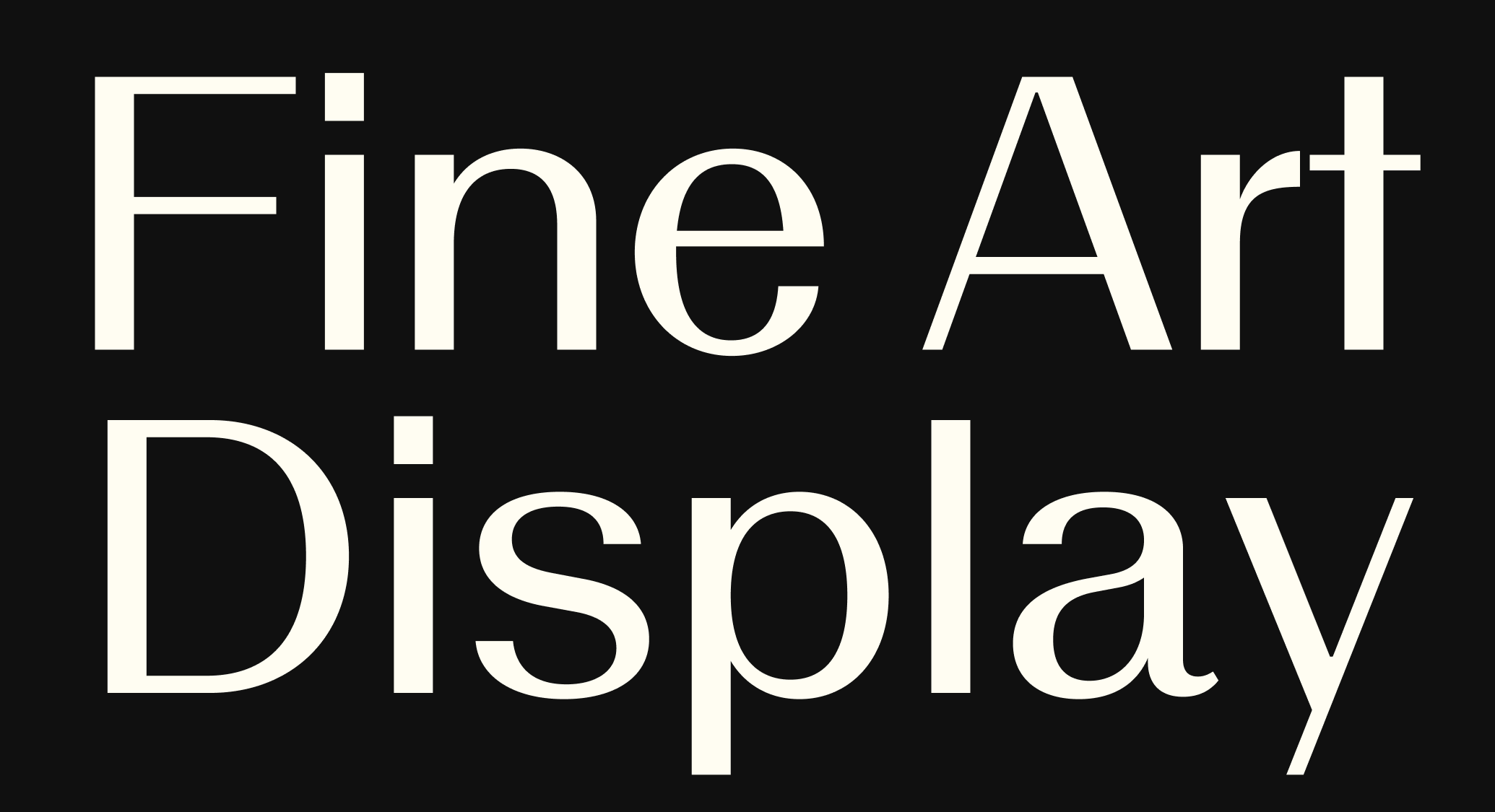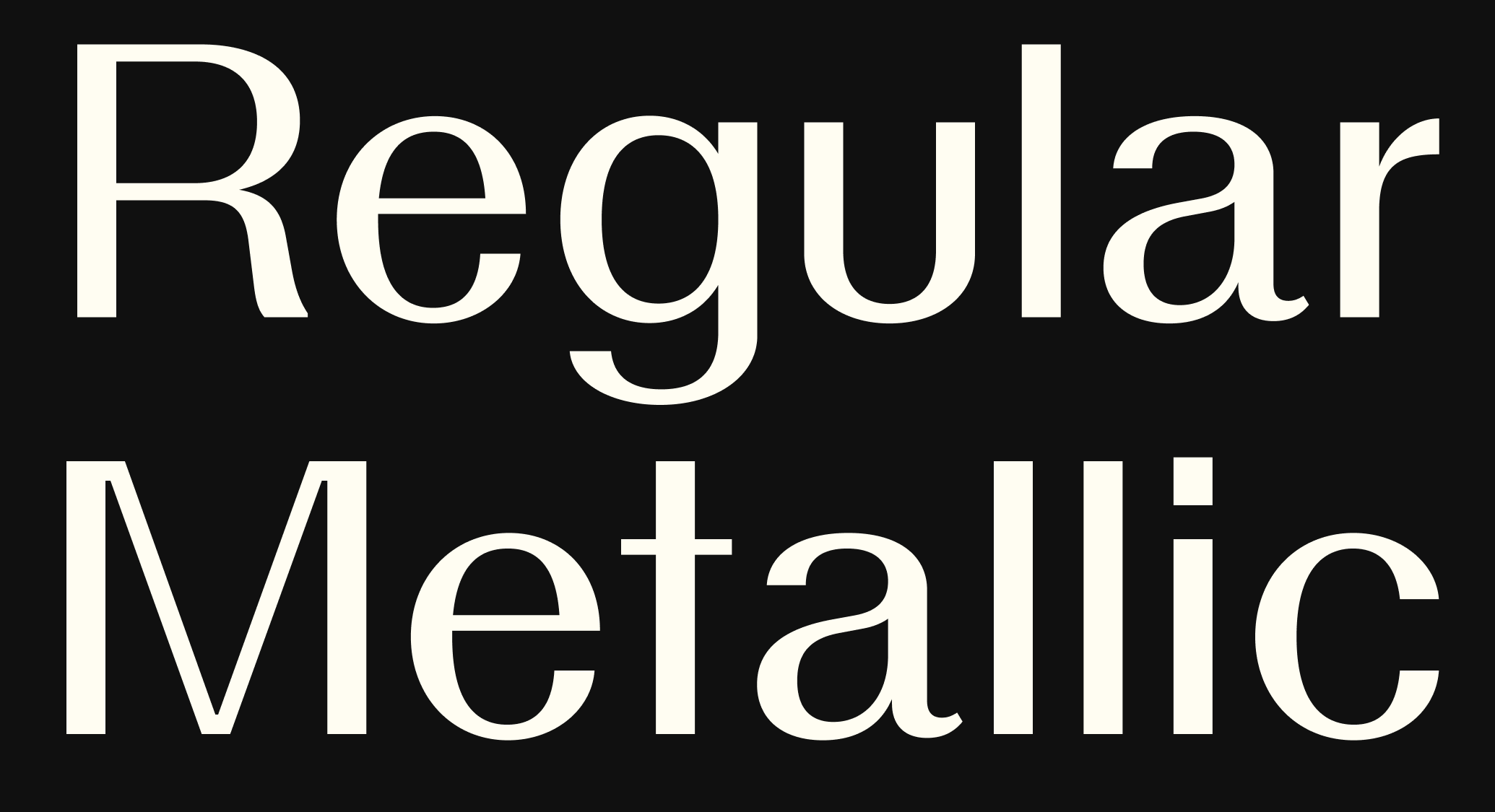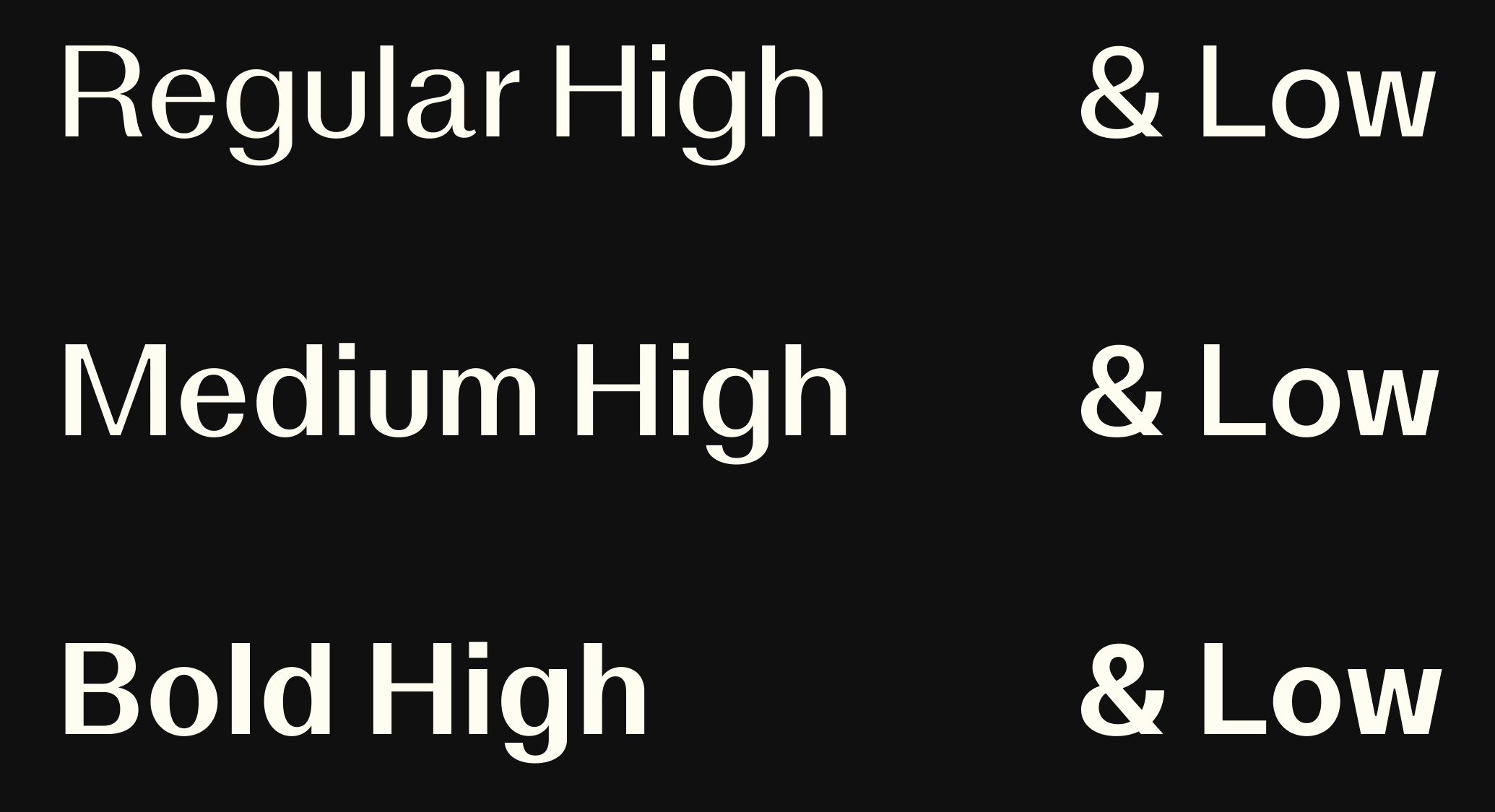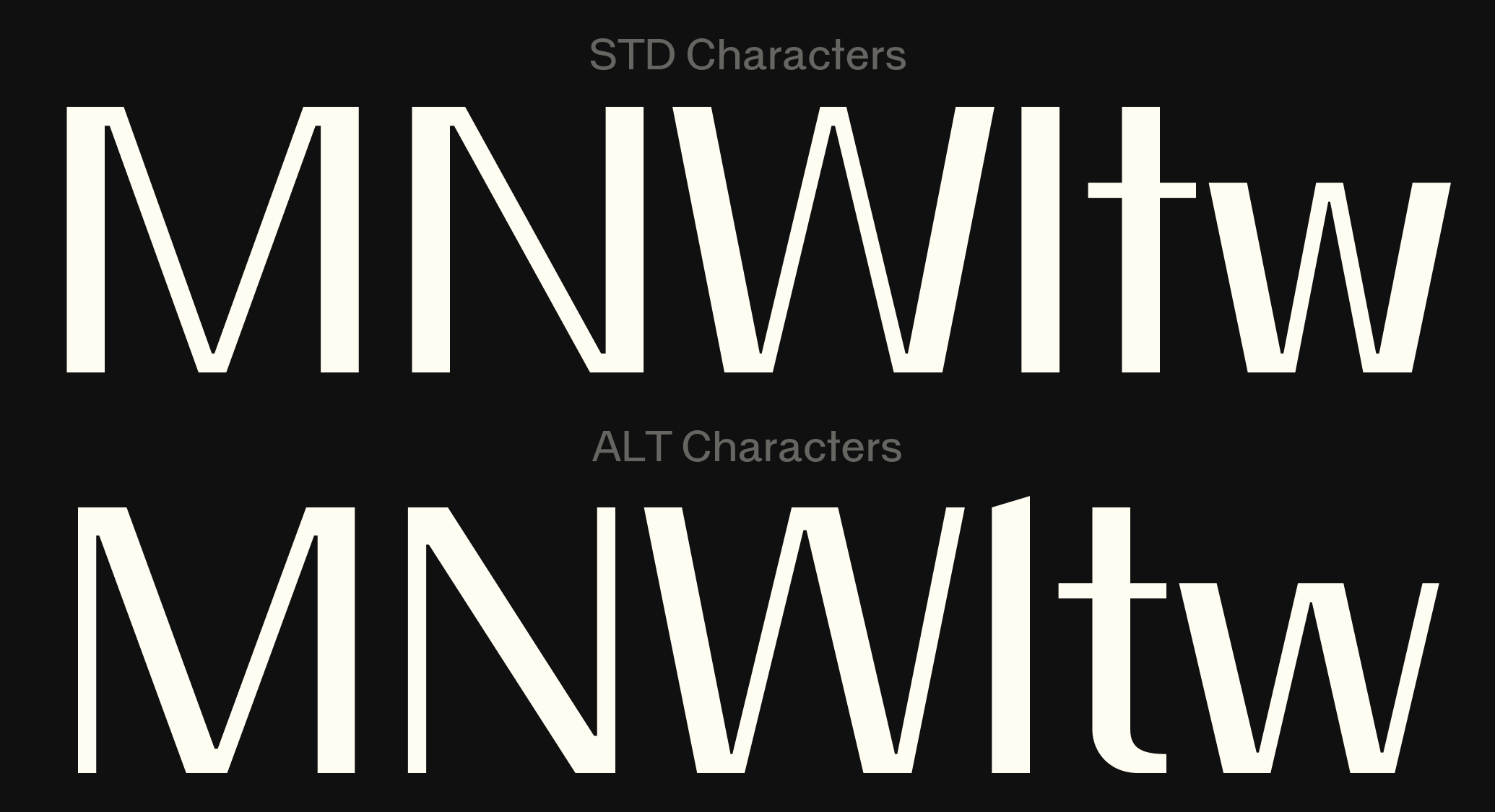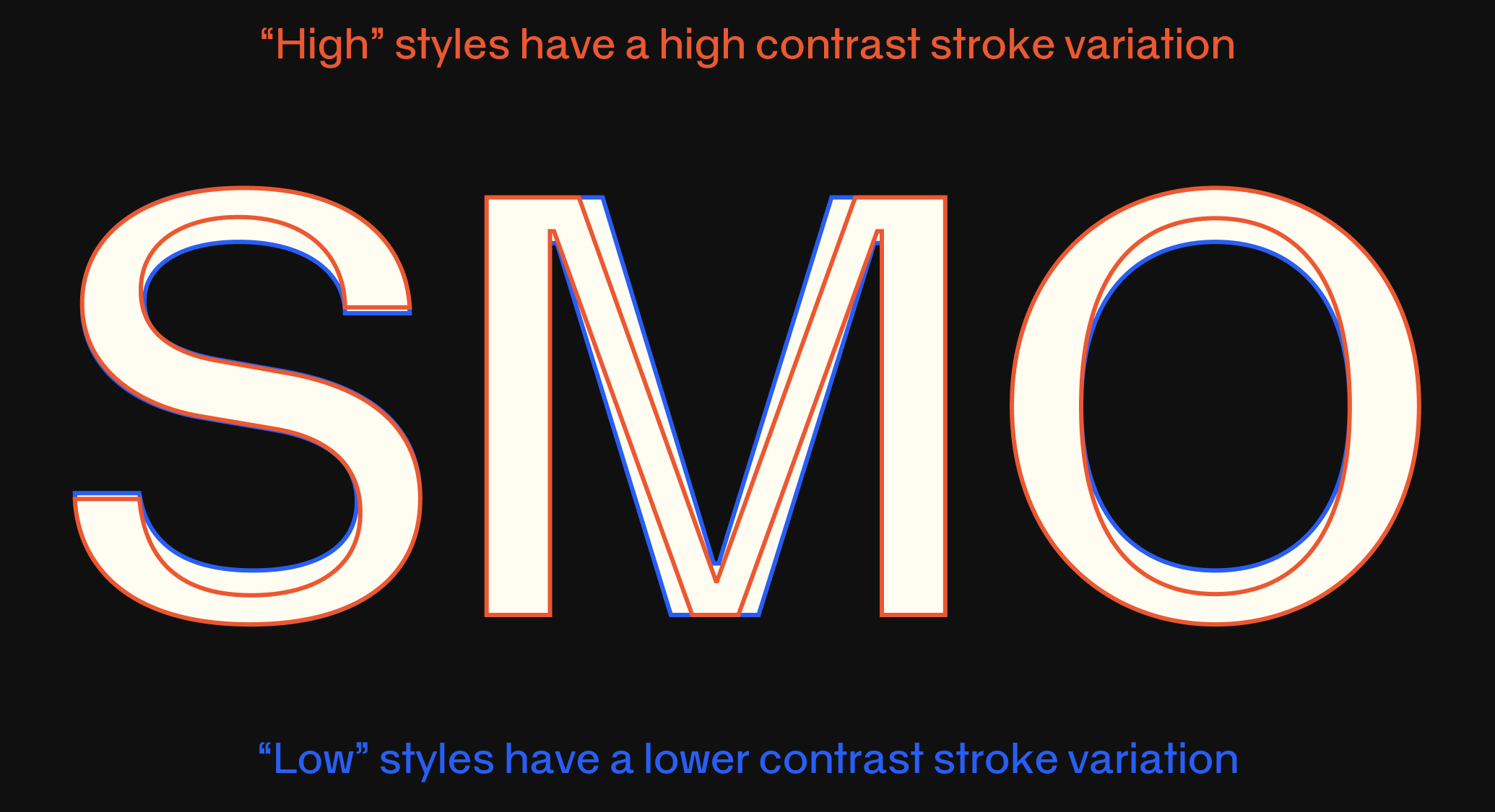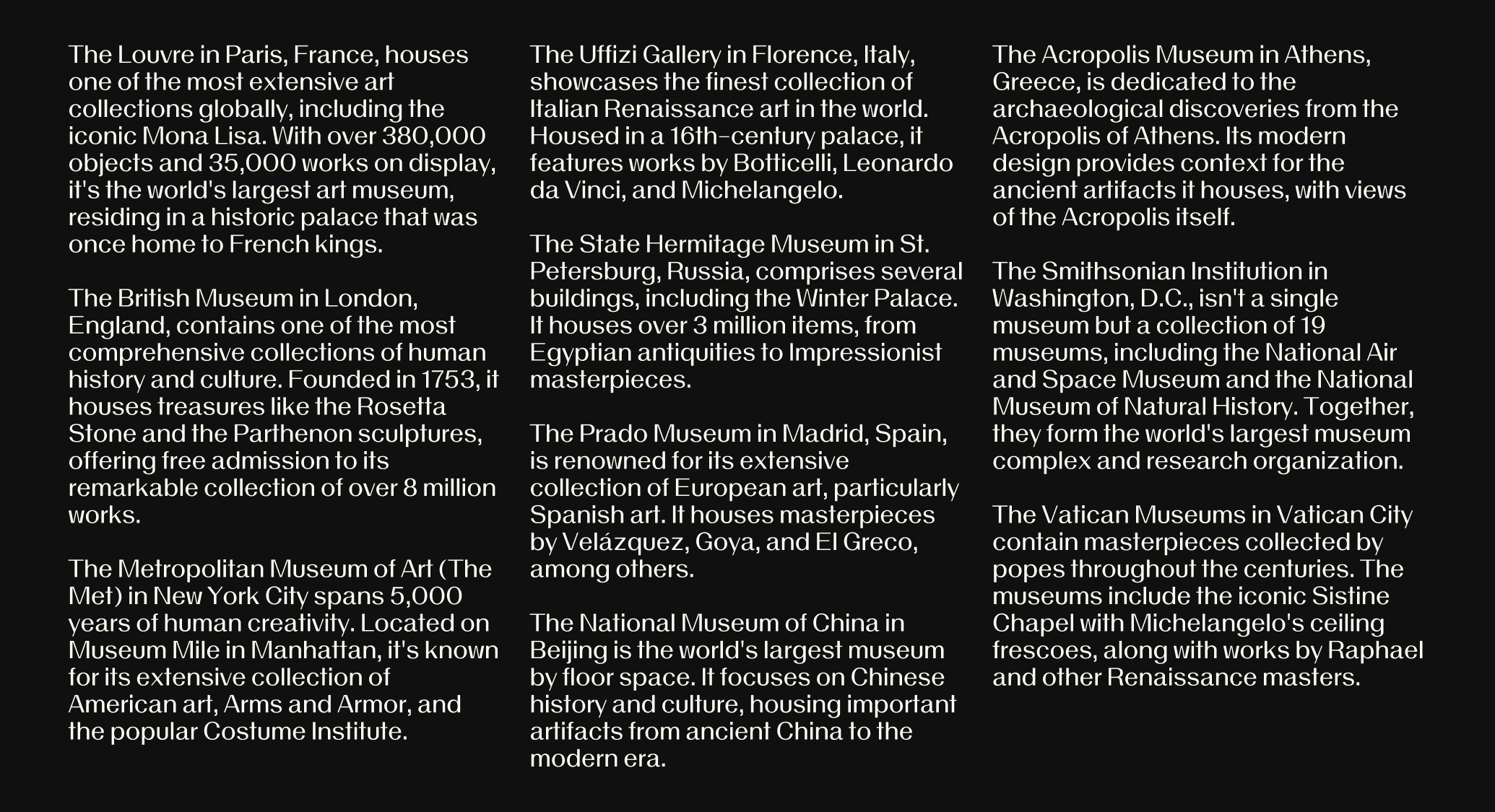
AF Nomadic
AF Nomadic is an orderly sans-serif type family with strong common traits, and a hereditary respect for the rules of good design. With variable contrast forms, its familiar grotesque styling is reborn into a riveting, unidentifiable genre. Strict adherence to a set of formal typographic principles makes Nomadic at once eminently approachable and enigmatic. Across every style, braced construction lends an air of unimpeachable durability.